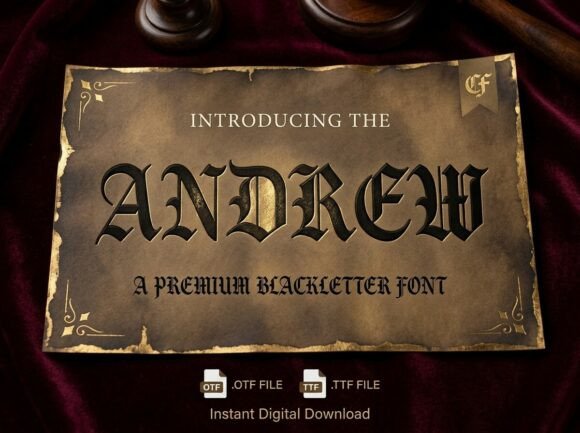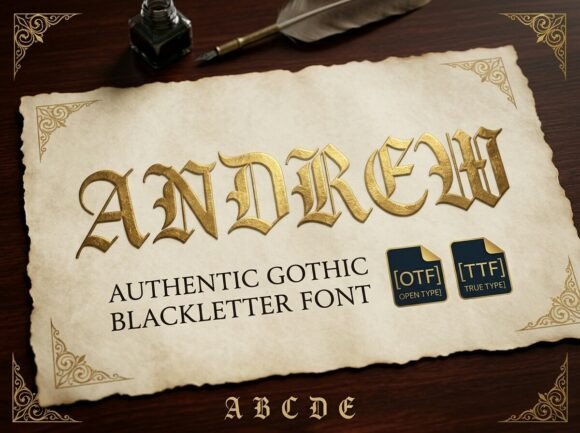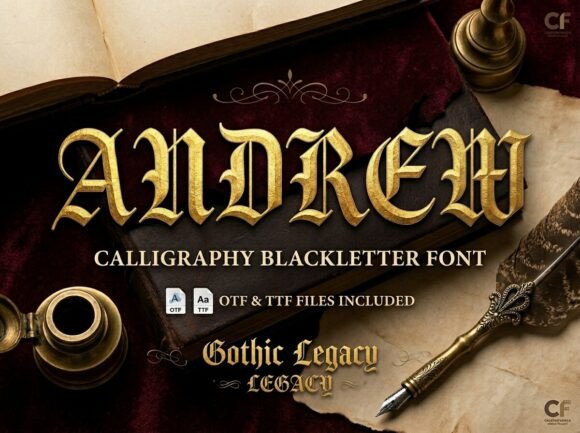
Unleash Your Creativity with Andrew Font: A Decorative Display Masterpiece
Have you ever been in the middle of a design project, and suddenly, you’re stuck on finding the perfect font? I recall a particularly frustrating experience while working on a poster design for a local event. My client wanted something bold, eye-catching, and unique, but I was struggling to find a font that fit the bill. That’s when I stumbled upon Andrew Font, and it completely transformed my design. In this article, I’ll share my experience with this stunning decorative display font and explore its features, uses, and alternatives.
A Personal Review: What I Love About Andrew Font
Andrew Font is a game-changer for designers, crafters, and creative hobbyists looking to add a touch of sophistication and creativity to their projects. Here’s what I love about it:
- ✨ Unique artistic elements that add an instant “wow” factor to any design
- ✅ Strong visual personality that’s perfect for high-impact designs
- 💥 Intricate details and creative letterforms that make it stand out from the crowd
- 🎨 Versatility in use, from bold headlines to artistic logos and creative packaging
While Andrew Font is an amazing decorative display font, there are a few things to keep in mind:
- ⚠️ It may not be the best choice for body text or long paragraphs, as its intricate details can be overwhelming
- 🤔 Some users may find the font a bit challenging to read at smaller sizes
Andrew Font was designed by a team of creatives who wanted to push the boundaries of traditional typography. Inspired by art, architecture, and nature, they crafted a font that’s both visually striking and highly versatile. The design process involved experimenting with different artistic elements, such as intricate details and creative letterforms, to create a font that’s truly unique.
| Font Name | Andrew Font |
| Author | Bluebird |
| What is Andrew Font best used for? | Andrew Font is perfect for high-impact designs, such as posters, branding, logos, apparel, and packaging. |
| Is Andrew Font suitable for body text? | No, Andrew Font is a decorative display font and may not be the best choice for body text or long paragraphs. |